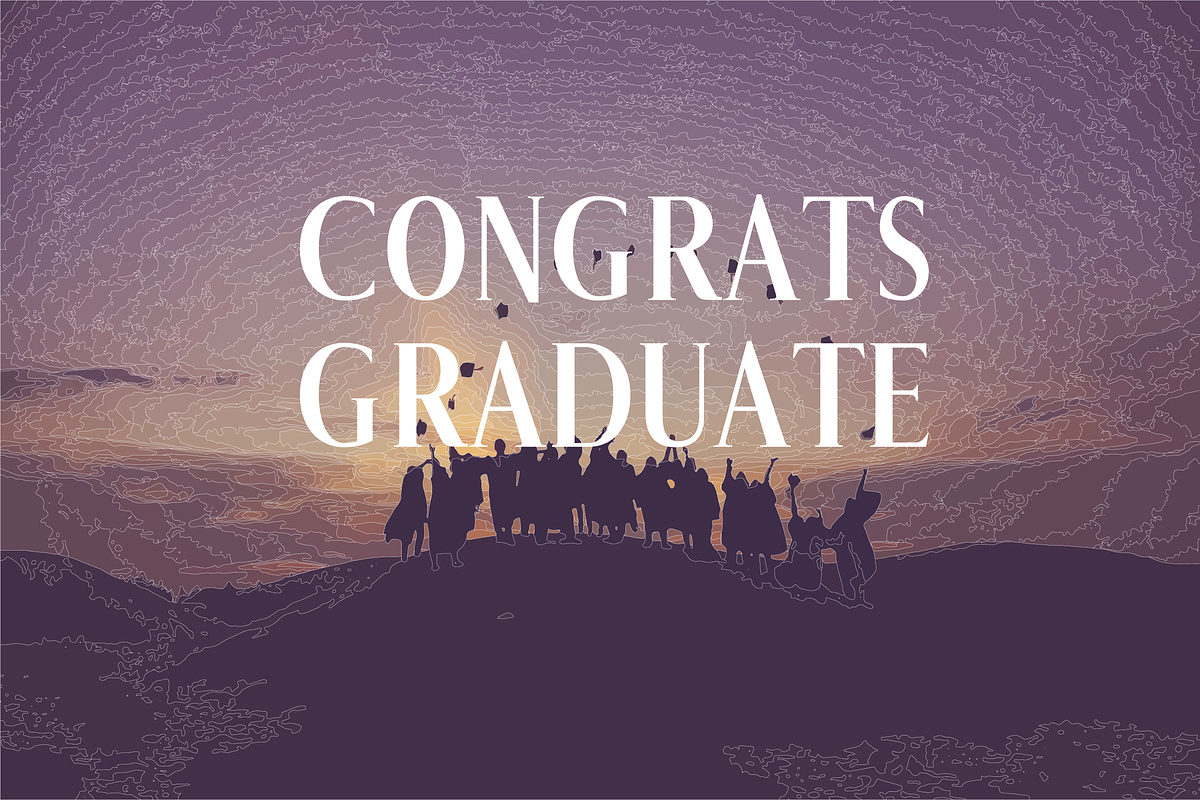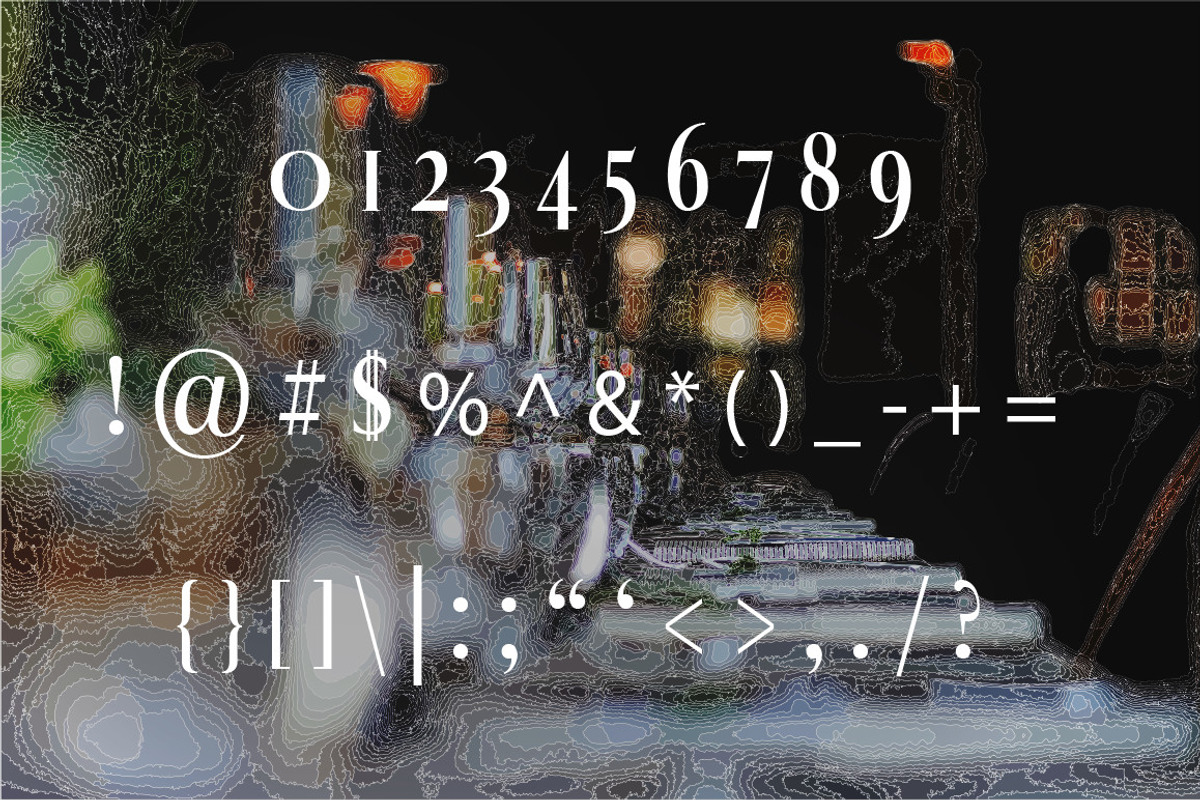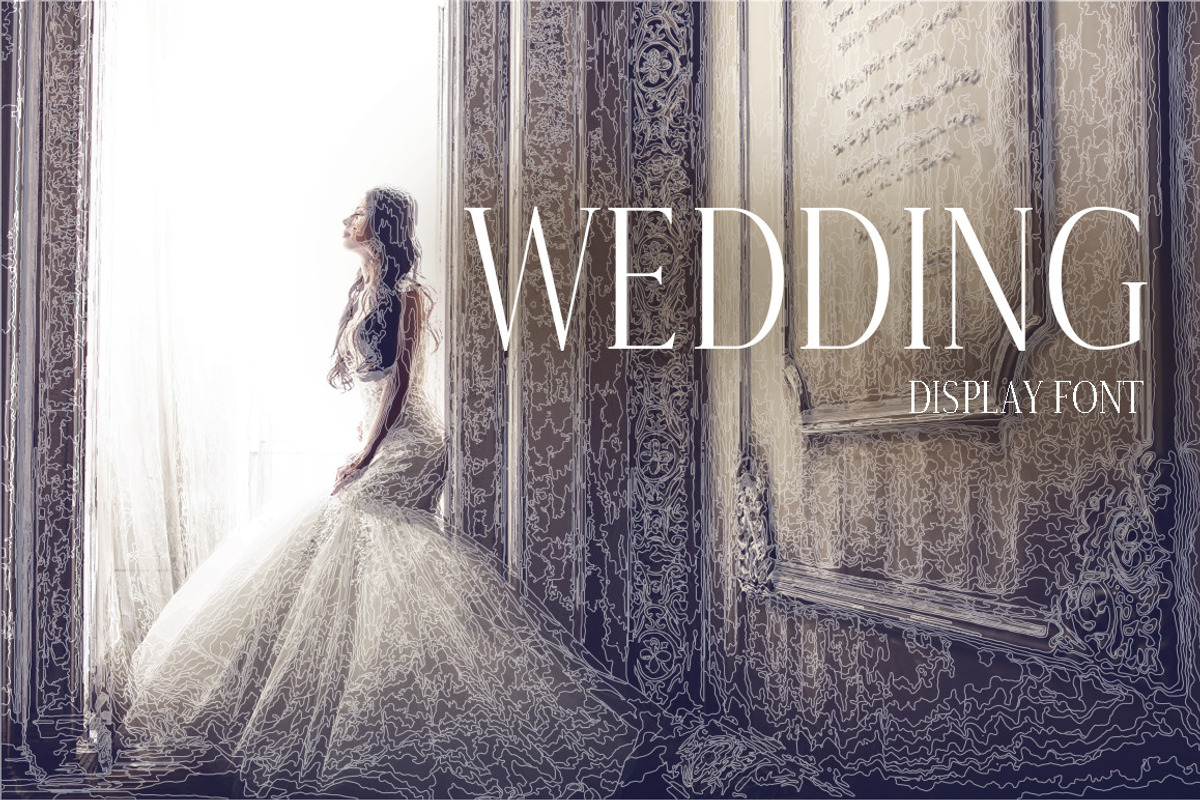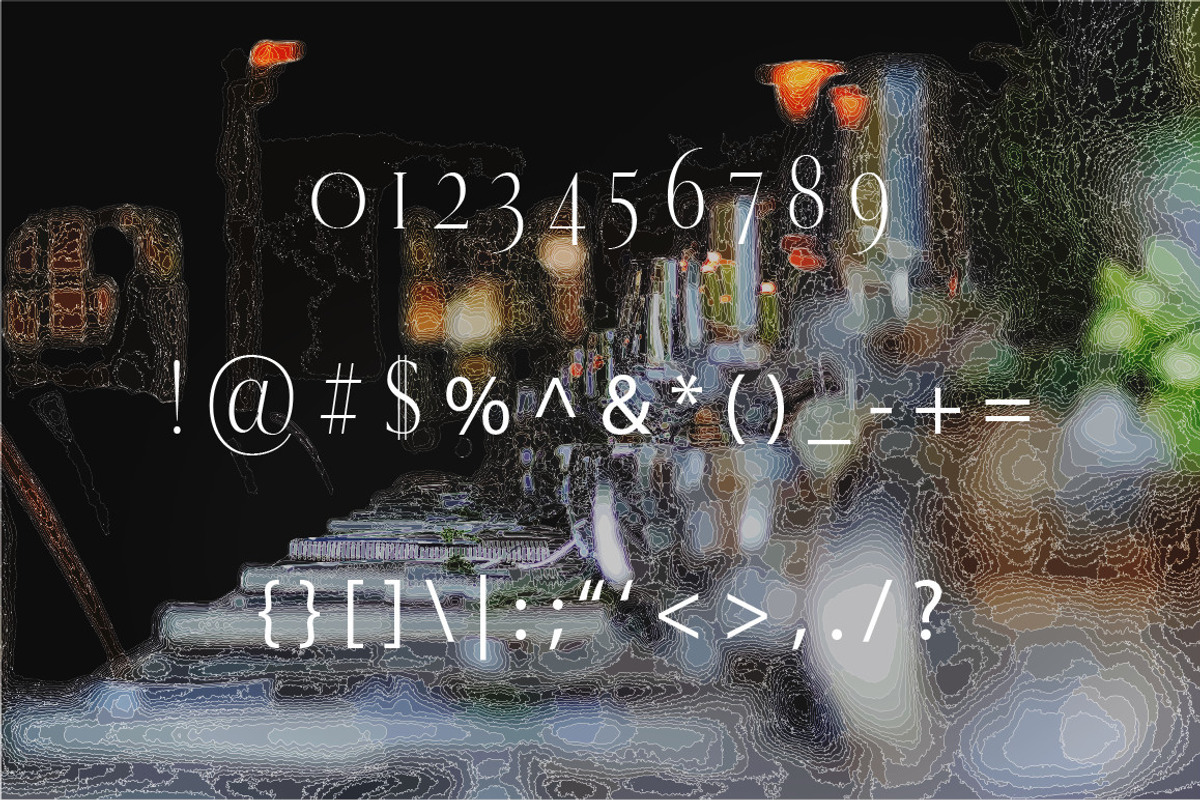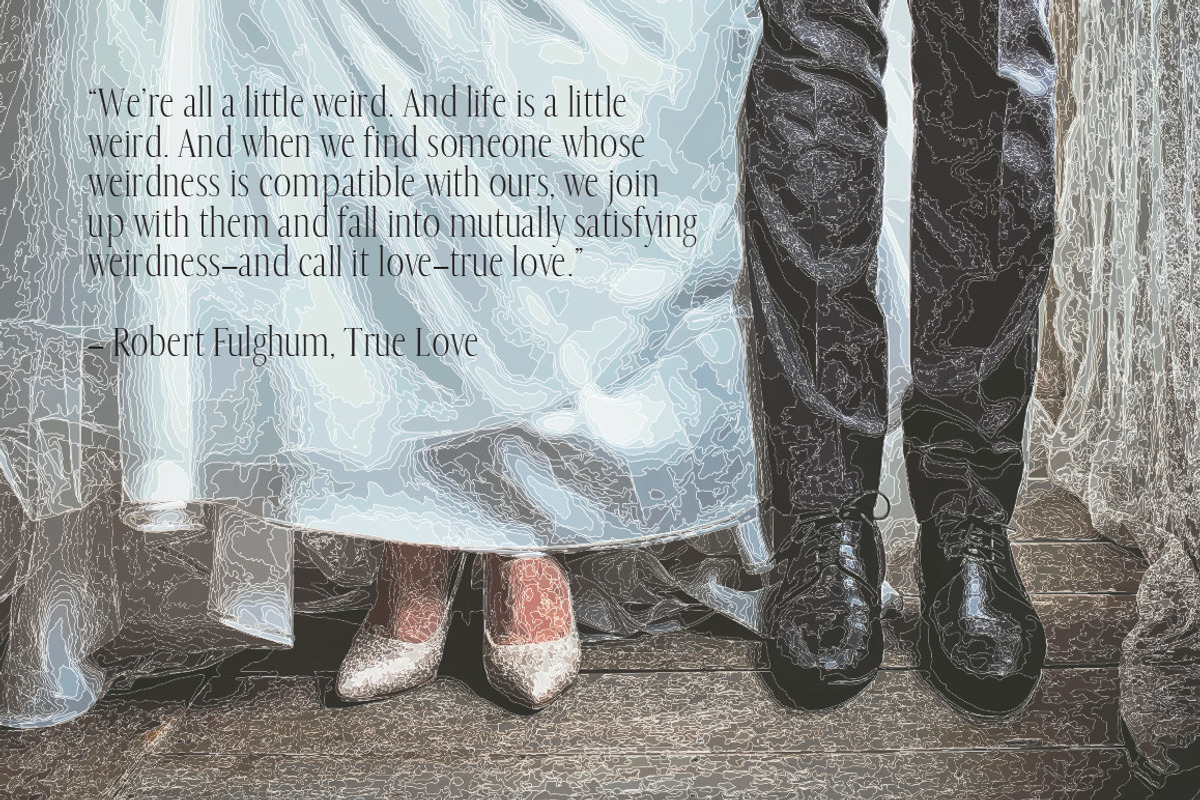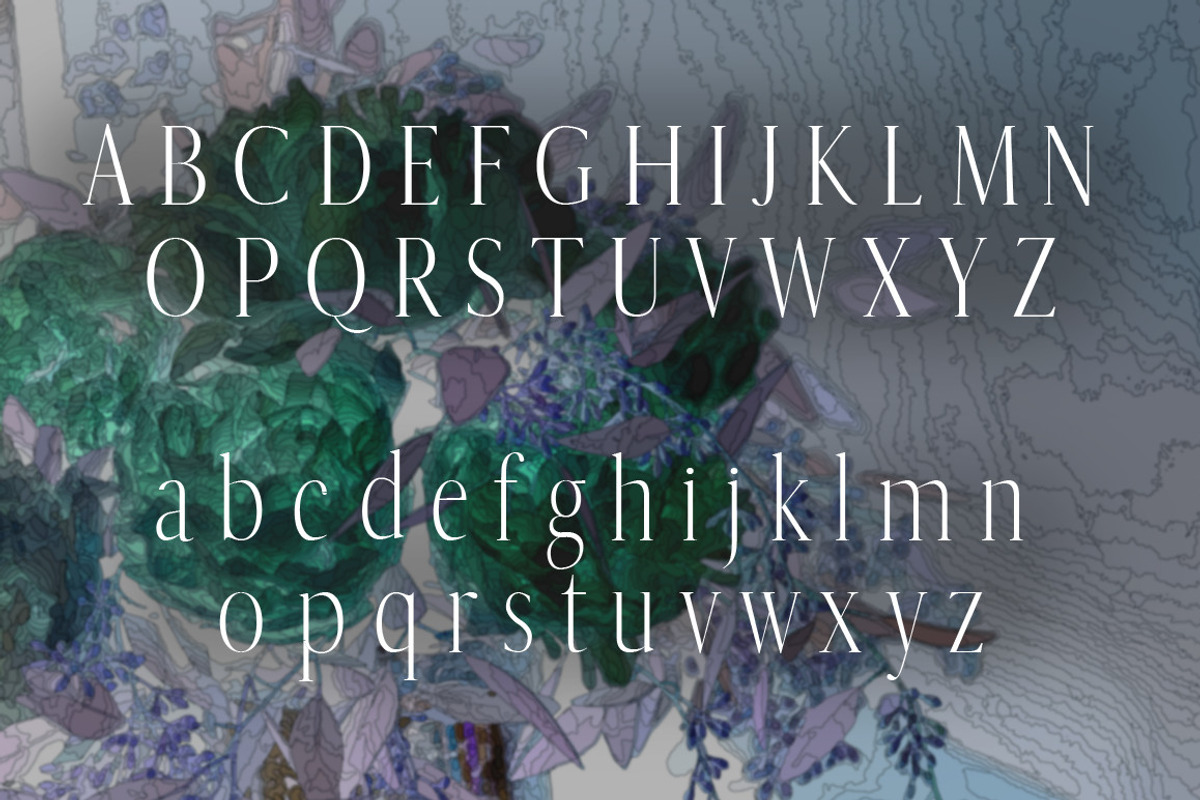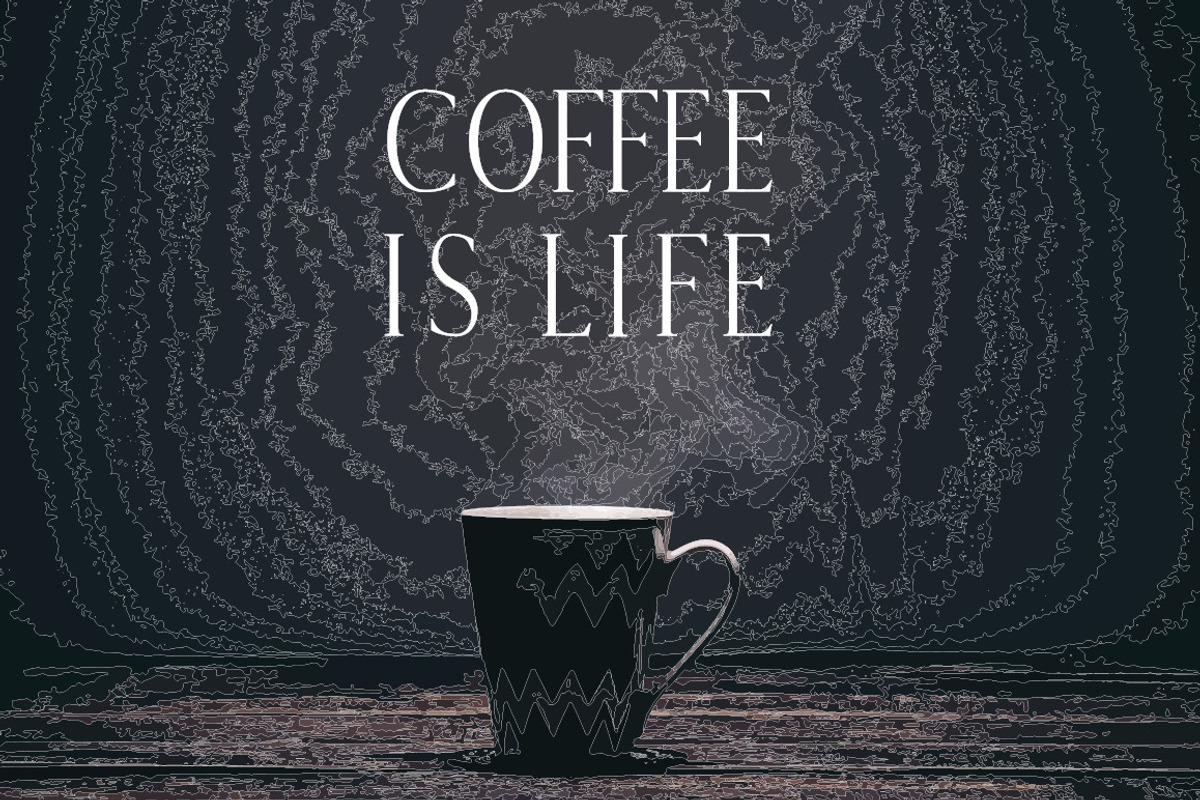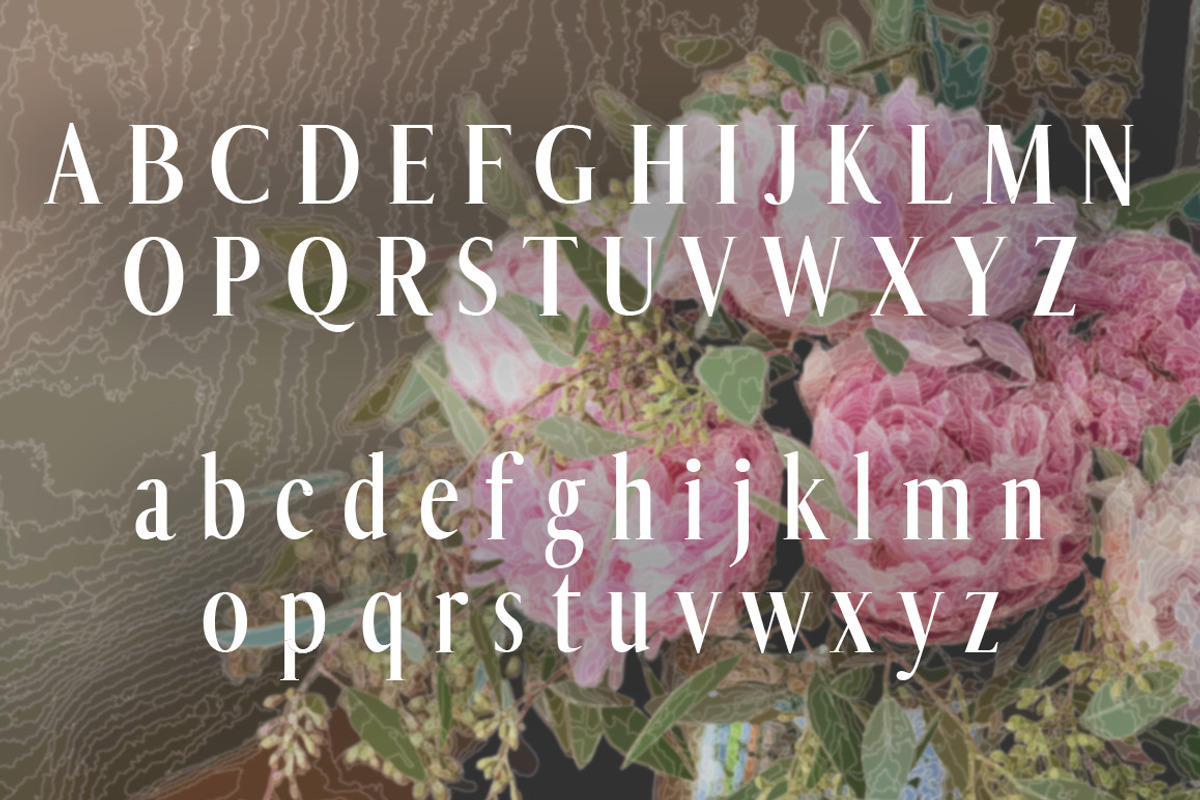
Wedding Display Font
This is a display font created for presentable wedding stationary materials, congratulatory materials, or any other displays.
Why Wedding Display Font is worth a look
Wedding Display Font by biibee fits naturally into Branding, posters, packaging, typography.